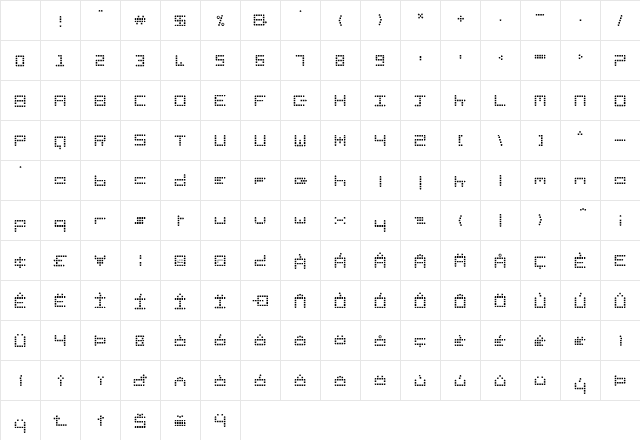
SidesAndCorners Three Free Font
SidesAndCorners Three
Style: Three
Design Context for SidesAndCorners
SidesAndCorners is a composed and adaptable typeface that performs quietly and consistently across a wide range of design contexts.